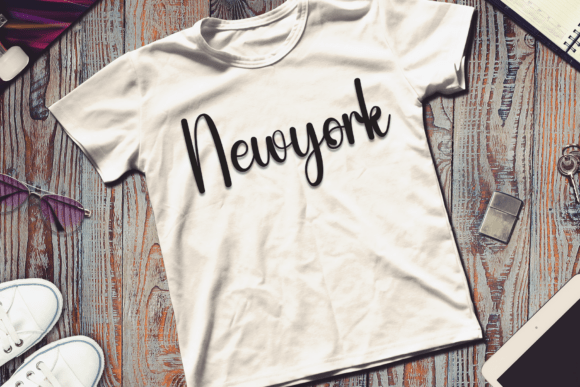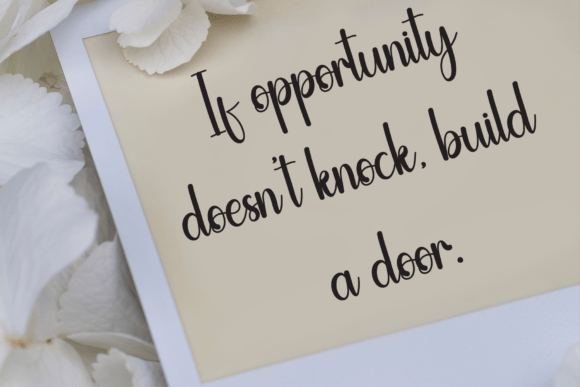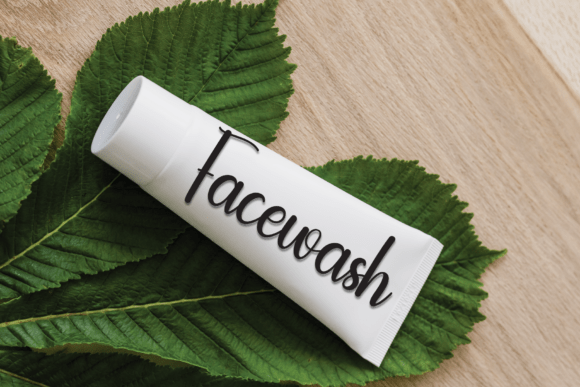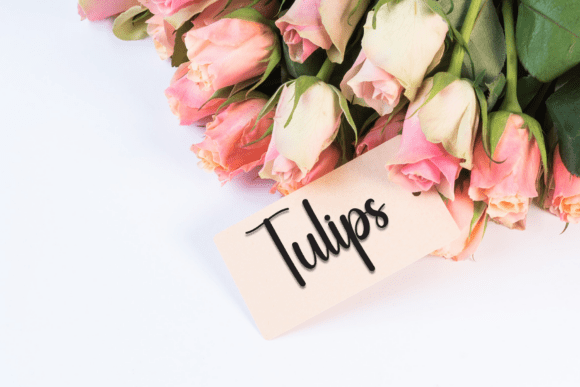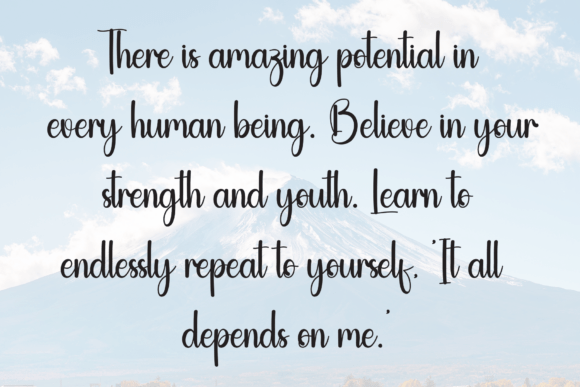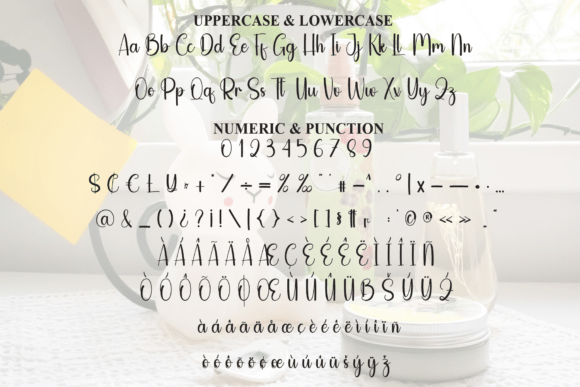
Grooming Font: Elevate Your Designs with Elegance and Playfulness
In the world of typography, a font can make or break a design. For those seeking a typeface that embodies both modern sophistication and a touch of playfulness, look no further than the Grooming Font. This stylish handwritten script font is designed to bring a personal feel to any project, making it perfect for designers and crafters looking to add a unique touch to their work.
The Essence of Grooming Font
Grooming Font is a masterpiece of modern typography, blending fluid strokes and charming curves to create a truly distinctive look. Its elegant appearance is balanced by a playful touch, making it versatile enough to be used in a variety of design applications. Whether you’re working on a logo, packaging, or invitation, this font is sure to add a touch of warmth and sophistication to your project.
Key Features of Grooming Font
- Fluid Strokes: The fluid strokes of Grooming Font give it a dynamic and elegant appearance, perfect for designs that require a touch of sophistication.
- Charming Curves: The charming curves of this font add a playful touch, making it ideal for designs that require a bit of personality.
- Handwritten Script: As a handwritten script font, Grooming Font brings a personal feel to any design, making it perfect for projects that require a human touch.
- Versatile: This font is versatile enough to be used in a variety of design applications, from logos and packaging to invitations and more.
Grooming Font is a perfect fit for designers and crafters looking to add a unique touch to their work. Its elegant appearance and playful touch make it ideal for a variety of projects, including:
- Logos: Create a lasting impression with a logo that features the elegant and playful Grooming Font.
- Packaging: Add a touch of sophistication and elegance to your packaging with this versatile font.
- Invitations: Make your invitations stand out with the charming curves and fluid strokes of Grooming Font.
Why Choose Grooming Font?
With so many fonts to choose from, why choose Grooming Font? Here are just a few reasons why this font stands out:
- Unique: Grooming Font is a truly unique typeface that will set your designs apart from the rest.
- Versatile: This font can be used in a variety of design applications, making it a great addition to any designer’s toolkit.
- Elegant: The elegant appearance of Grooming Font makes it perfect for designs that require a touch of sophistication.
- Playful: The playful touch of this font adds a bit of personality to any design, making it perfect for projects that require a human touch.
In conclusion, Grooming Font is a stylish handwritten script font that is sure to elevate your designs with its modern elegance and playful touch. Its fluid strokes and charming curves bring a personal feel to any project, making it perfect for designers and crafters looking to add a unique touch to their work. With its versatility, elegance, and playfulness, Grooming Font is a great addition to any designer’s toolkit.